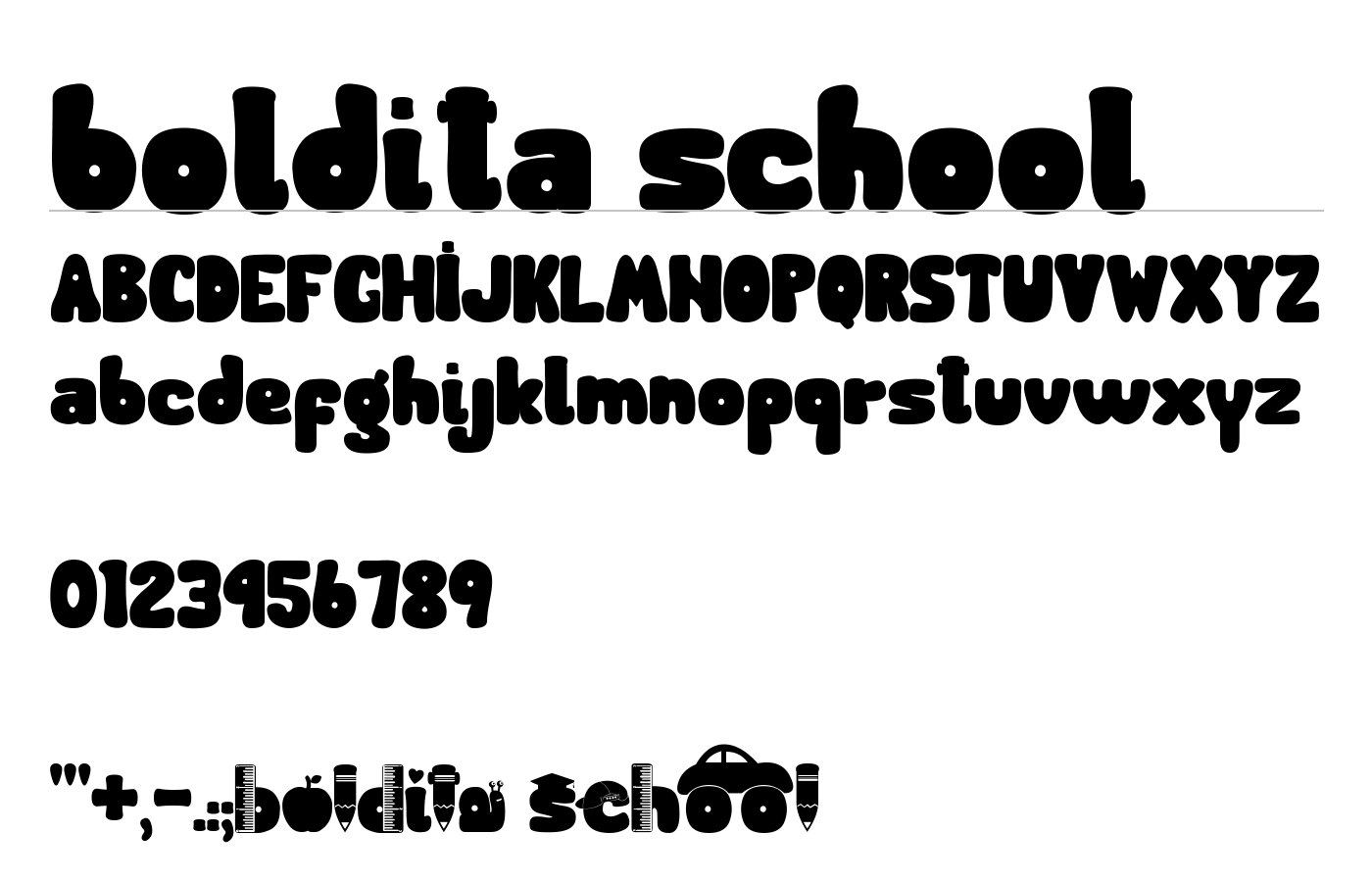
Boldita School is a playful, chunky sans serif font with rounded edges and a heavy weight that conveys a friendly and approachable feel. Its wide letterforms and quirky details make it perfect for projects aimed at children or casual, fun branding. This font works best for headlines, logos, and educational materials where a bold, whimsical style is desired.
boldita school Font
About boldita school Font